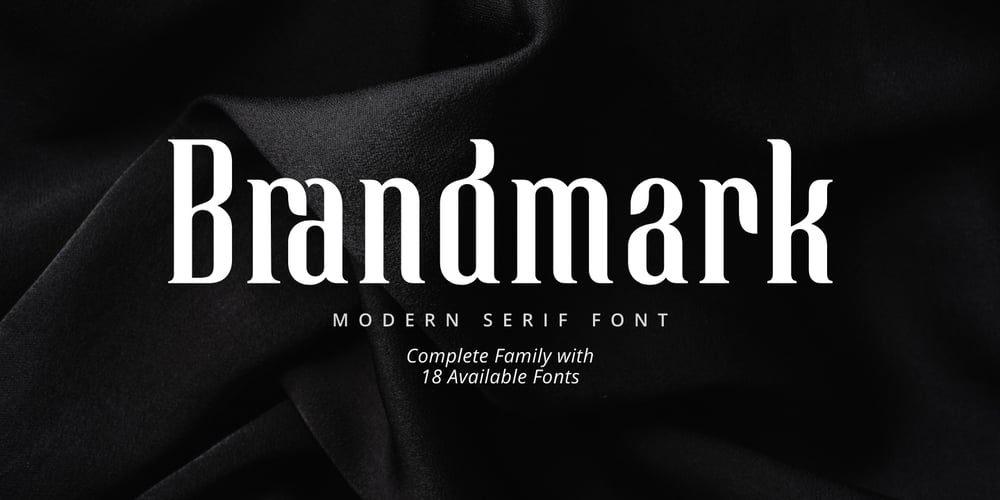
Brandmark Font Family was designed by David Kasidi, Andi Kaisar and published by Silverdav. Brandmark contains 18 styles and family package options. Introducing Brandmark Font, a serif font family that embodies the essence of modern elegance. With 18 exquisitely designed fonts, Brandmark offers a harmonious blend of 9 upright and 9 italic styles, ranging from the delicate grace of thin to the commanding presence of extra bold.Brandmark is more than a typeface; it is a canvas of expression, a symphony of design. Each letterform is meticulously crafted, merging the timeless charm of serifs with a contemporary flair, creating a perfect balance of tradition and innovation.Imagine the whispers of thin italics weaving through your designs, adding a touch of sophistication and subtlety. Feel the strength and confidence exuded by the bold, upright characters, making a bold statement that demands attention. This versatility allows Brandmark to adapt effortlessly to any project, be it a luxurious brand identity, a captivating editorial layout, or a sleek digital interface.Brandmark also provides many ligatures and alternates that you can use to perfect your designs, besides Brandmark also supports more than 95 languages